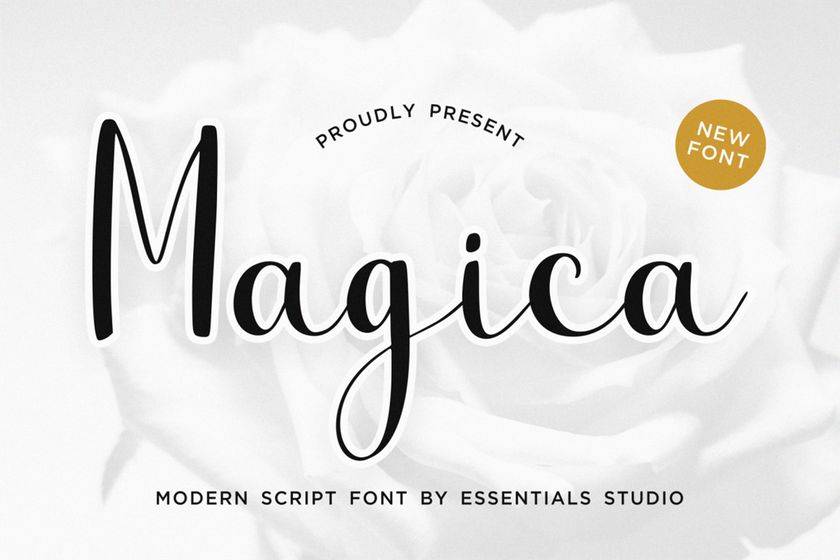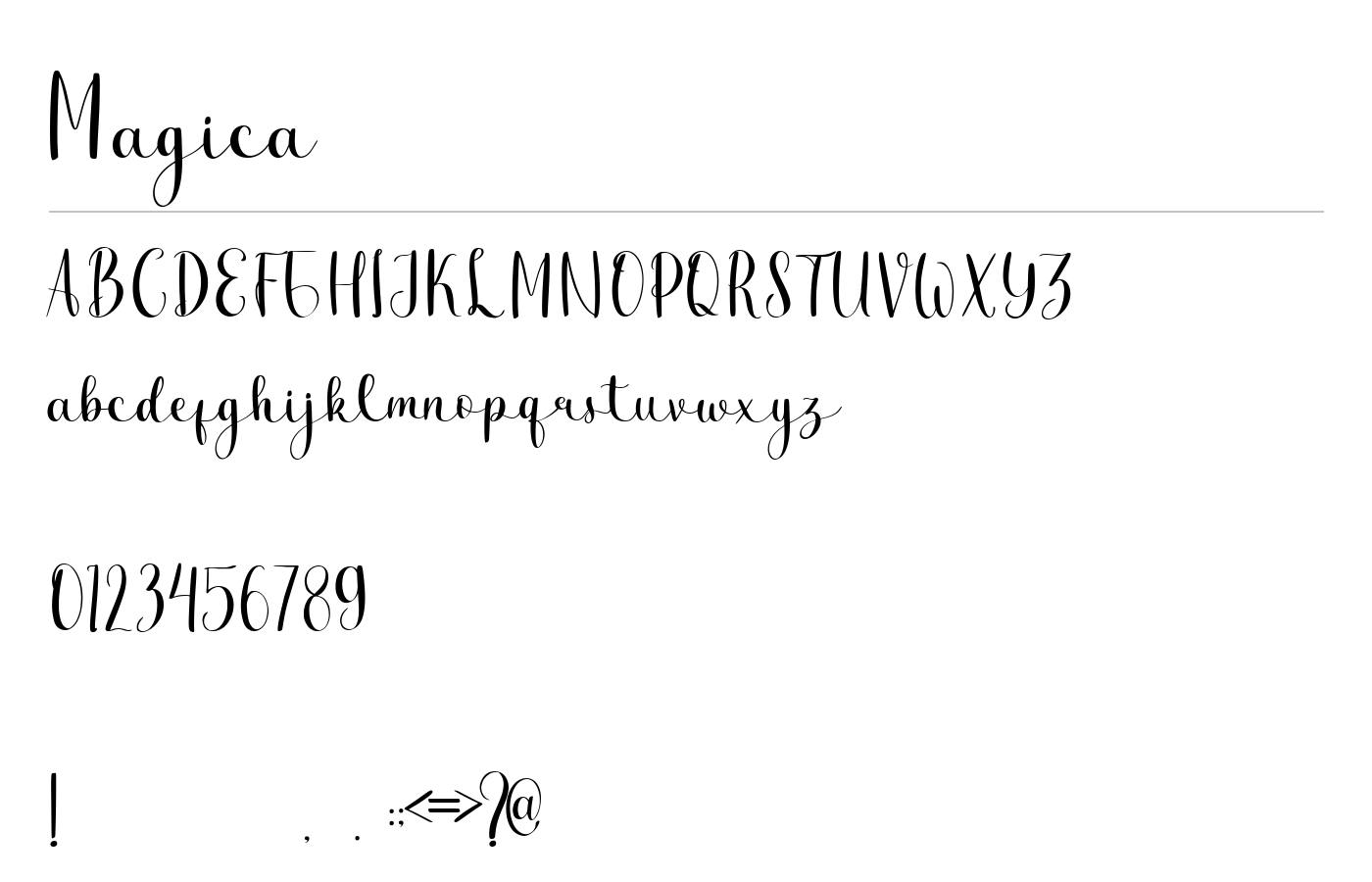
Magica Font is a slender, elegant script typeface with a whimsical yet refined character, featuring delicate strokes and graceful swashes that give it a hand-drawn, calligraphic feel. Its tall, narrow letterforms with varied stroke widths make it ideal for stylish invitations, branding, and headlines where a touch of sophistication and charm is desired. This font works beautifully in fashion, beauty, and event design contexts, adding a magical and personal flair to any project.
Magica Font
About Magica Font
| Font family | Magica Font |
| Designer | Bagus Panji Asmoro |